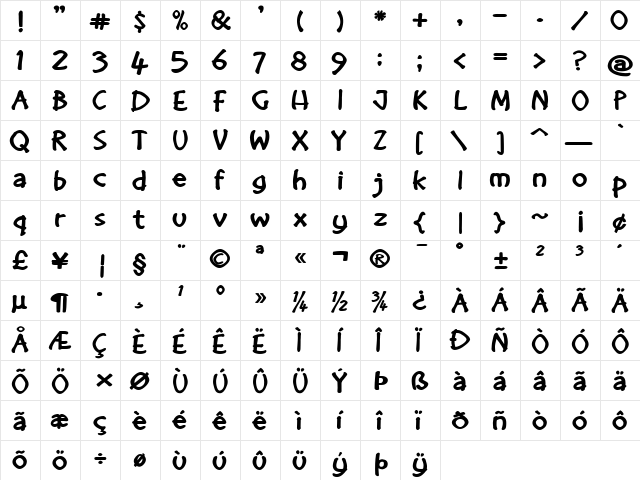
SandWriting Regular
| Foundry | Scholtz Fonts |
| Designer | Anton Scholtz |
Design Context for SandWriting Typeface
SandWriting is a composed and adaptable typeface that performs quietly and consistently across a wide range of design contexts.